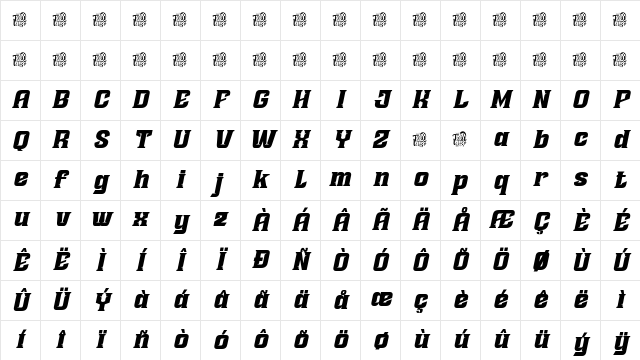
ATHYRKI Slant Regular Free Font
ATHYRKI Slant Regular
Foundry: twinletter
Designer: Hakim
Design Context for ATHYRKI Slant
ATHYRKI Slant is a composed and adaptable typeface that performs quietly and consistently across a wide range of design contexts.
Pro Tip: Use ATHYRKI Slant in both headline and body roles to test its range before committing to a single application.